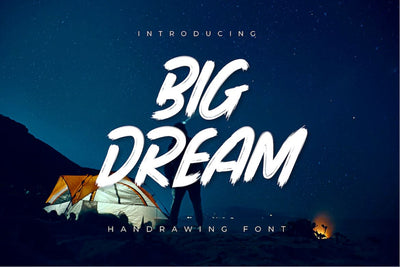
Big Dream
Big Dream is a bold and distinct display font, created with the help of a brush pen. Masterfully designed to become a true favorite, this font has the potential to bring each of your creative ideas to the highest level!
This font will turn any creative idea into a true piece of art,
this font is perfect for strong text with displays for a wide variety of branding, advertising, posters, banners, packaging, headlines, outdoor activity, websites, logo design, and more.